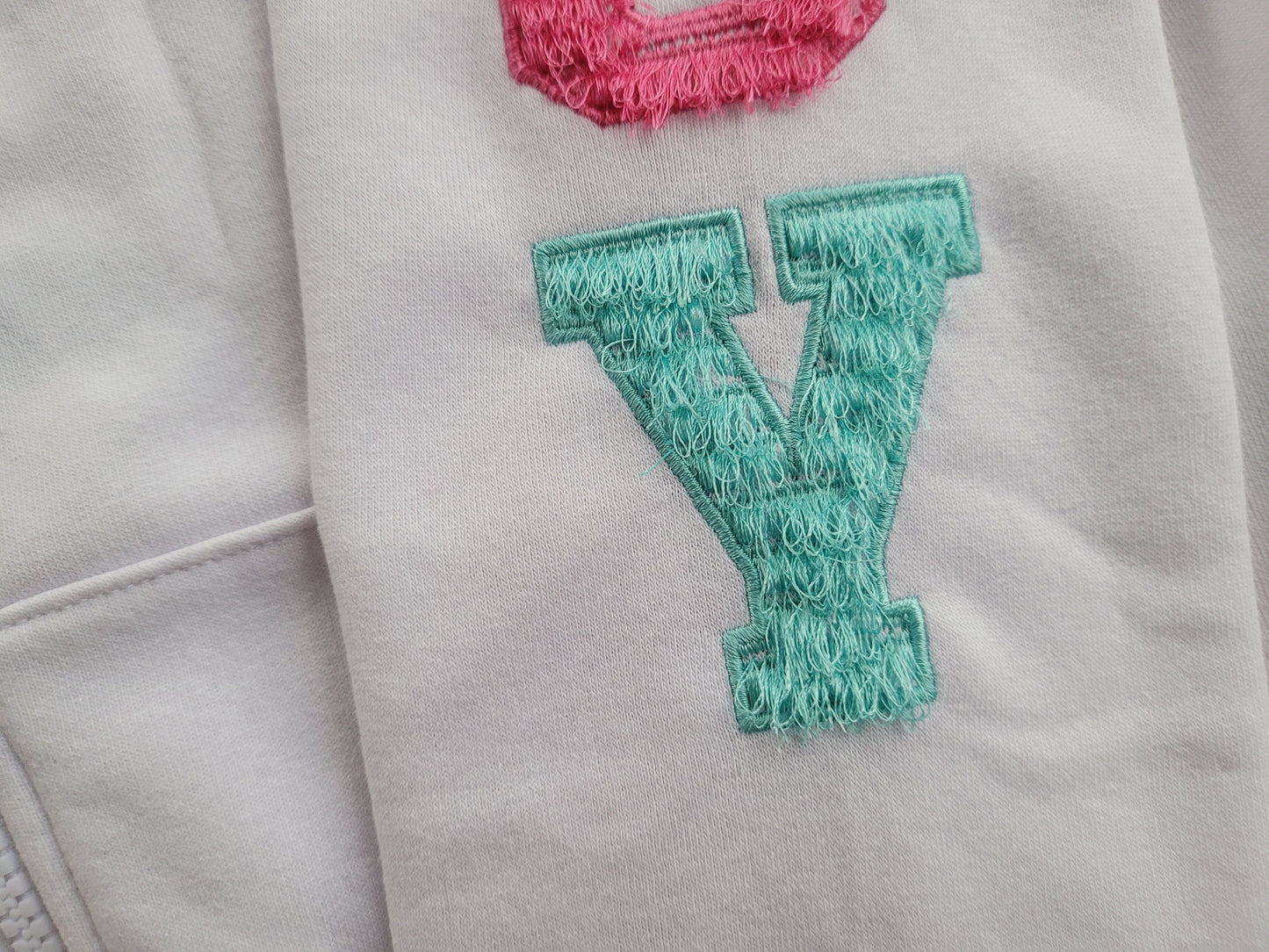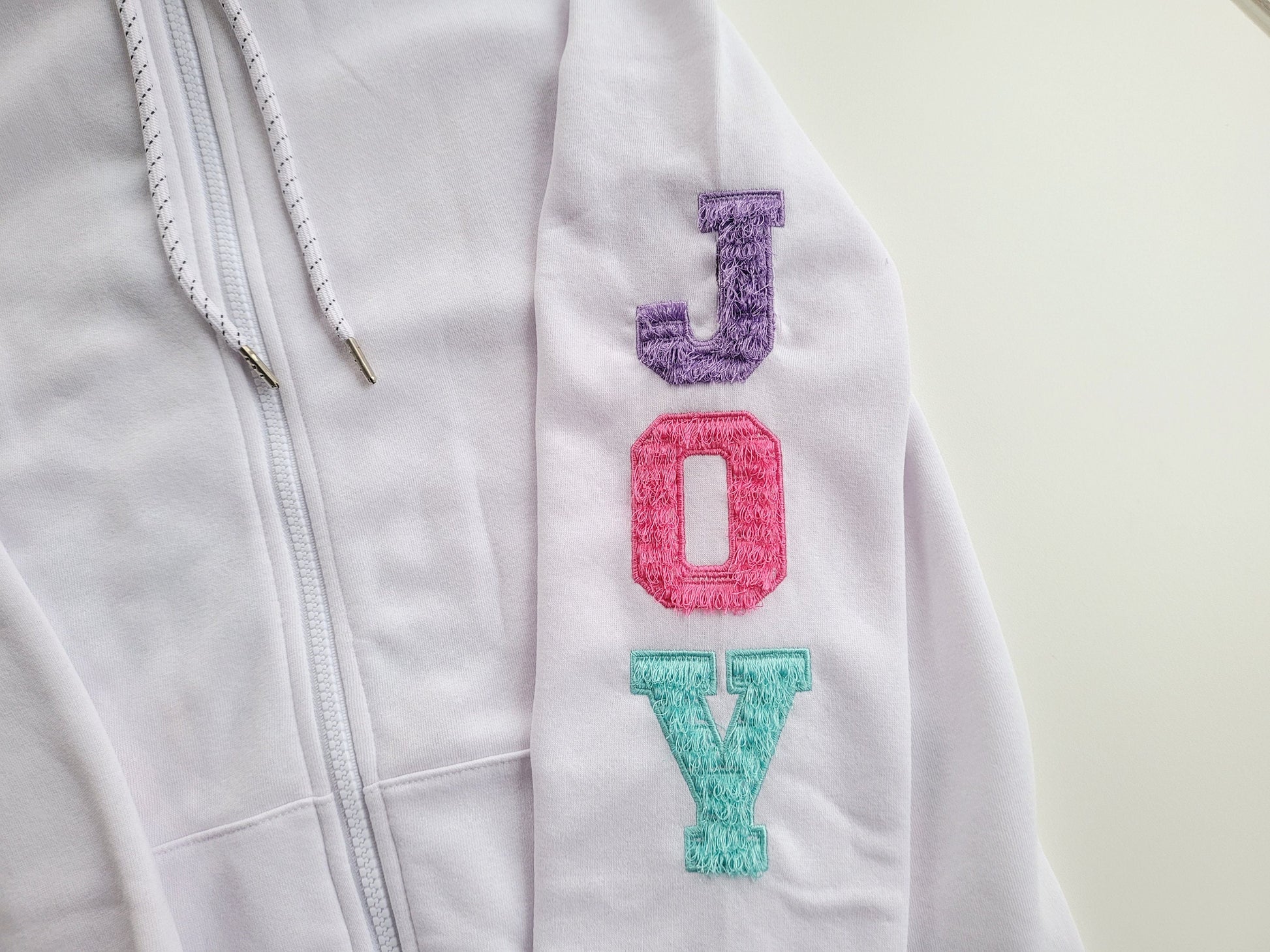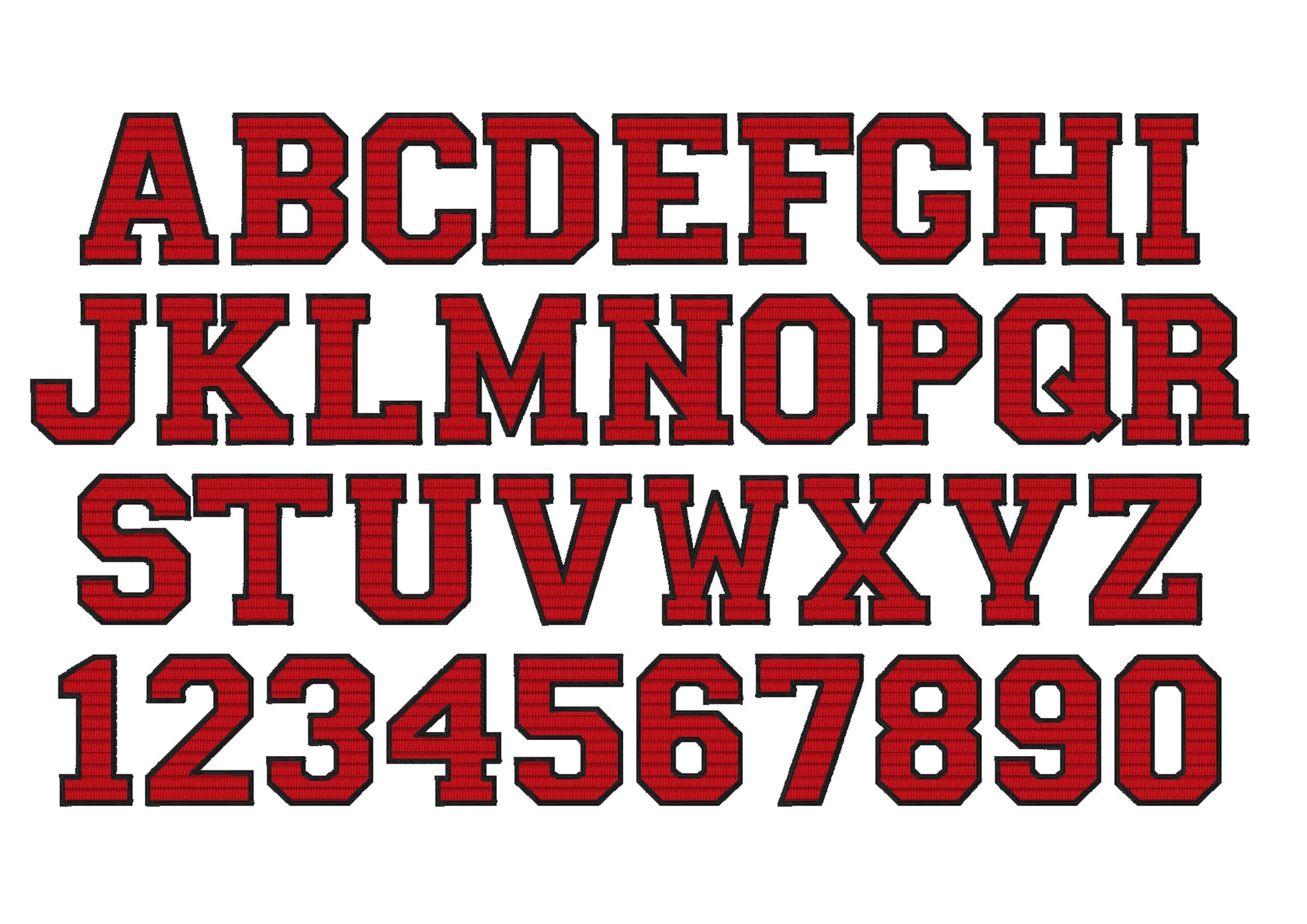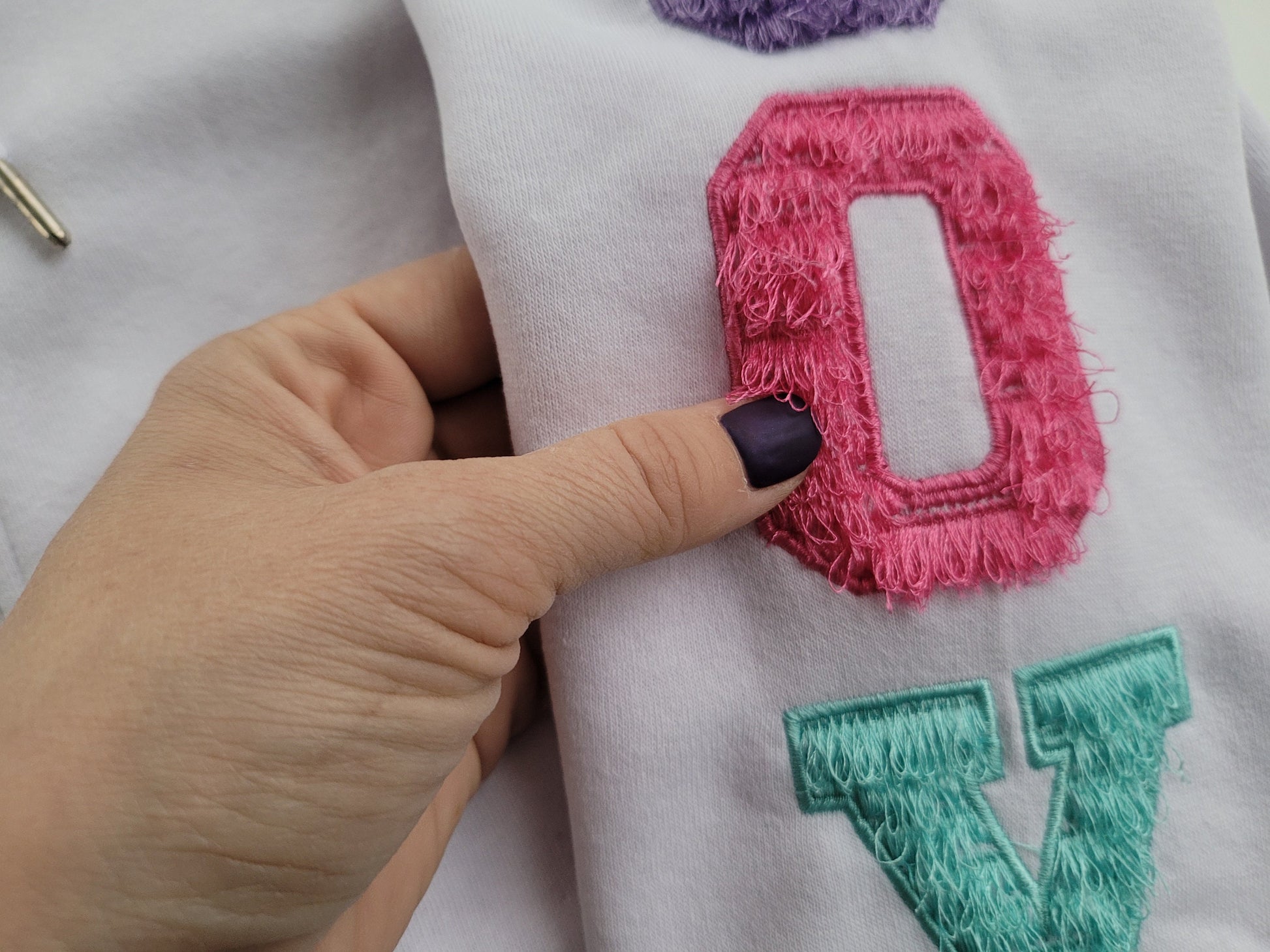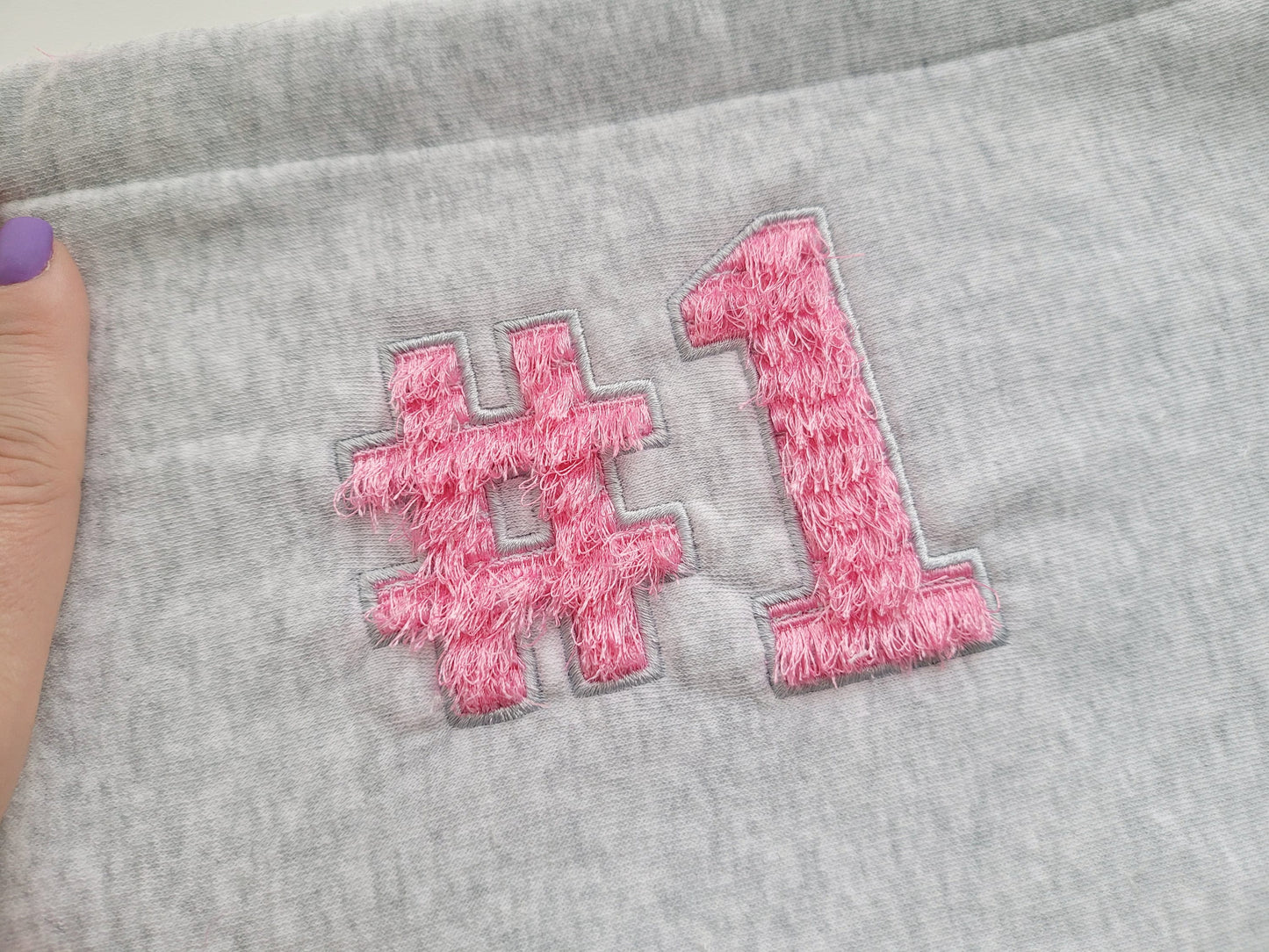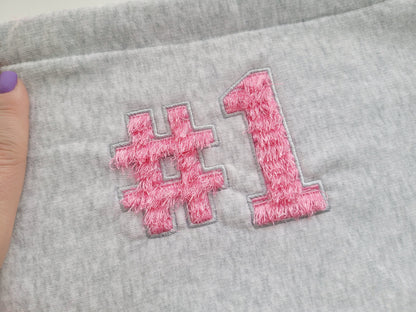
Or click to open the linkA fringed, fluffy athletic font that looks like chenille. Made for team shirts, letterman jackets, school spirit and sports gifts.
The letters come in six sizes: 2.5, 3, 3.5, 4, 5 and 6 inches. Stitched like applique; the long satin stitches are cut from the back and fluffed into fringe. A special seam holds the fringe in place, so it is safe to wash. Includes uppercase letters A to Z, numbers 0 to 9 and the signs & . , # / !